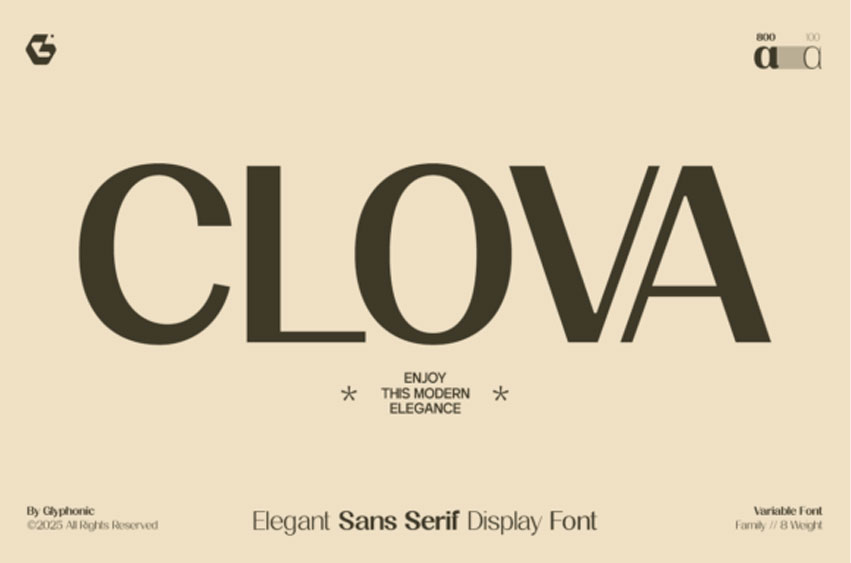
Clova Font is an exquisite and sophisticated sans-serif display typeface designed for high-end elegance.
This Clova font masterfully balances clean, modern lines with unexpected high-contrast elements, giving it a refined and distinctly luxurious appeal. It’s the perfect choice for designers looking to convey a sense of prestige, quality, and timeless style in their work.
The clean structure and sharp detailing of the Clova font make it an essential asset for luxury fashion editorials, sophisticated branding, and high-impact corporate identity projects. Its variable font technology offers unparalleled versatility, allowing you to fine-tune the weight from delicate to dominant for maximum effect. Use this modern Clova font for striking headlines, distinguished logotypes, and elegant invitations that demand attention.
Unlock the power of modern elegance with the Clova font. Its contemporary yet classic design ensures that your printed materials and digital presence alike will possess an air of cultivated sophistication. For projects that require nothing less than impeccable style, this sans-serif Clova font delivers exceptional design quality every time.
The font is also PUA-encoded, ensuring effortless access to all glyphs, swashes, and alternate characters to help you customize your creations with ease.